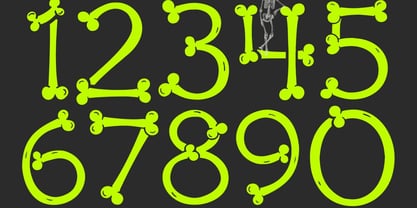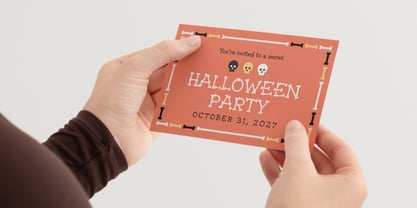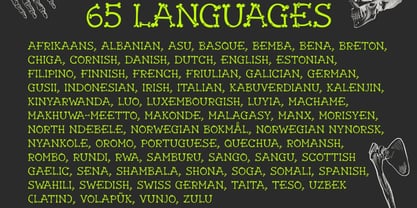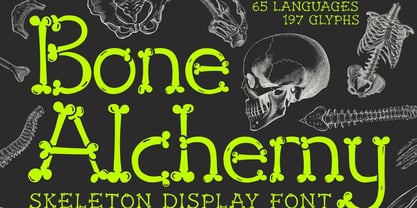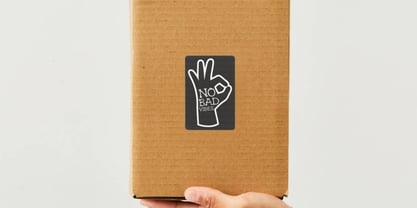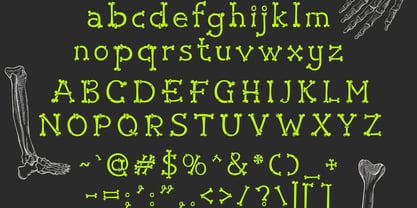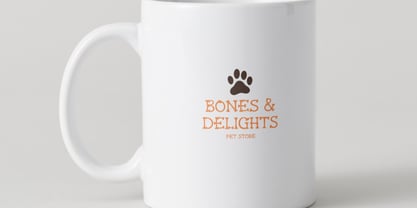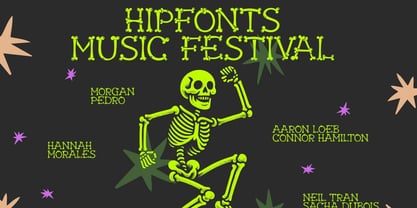
Bone Alchemy
The Bone Alchemy Font Family was designed by Igor Ovsyannykov and published by Hipfonts. Bone Alchemy contains 1 styles. More about this family
Conjured from the shadows of forgotten rituals and the playful mischief of the macabre, Bony Alchemy is a skull-and-bone inspired display typeface that transforms skeletal forms into bold, eye-catching typography. Built from chunky bone-like structures and carved with subtle organic imperfections, this font blends eerie charm with whimsical personality. Each letter feels assembled — as if pieced together from enchanted remains — creating a look that’s spooky without losing its sense of fun. Bony Alchemy walks the line between creepy and charismatic. It’s dramatic enough for dark themes, yet playful enough for seasonal and character-driven designs. The result is a typeface that feels alive… even though it’s made of bones.
Bone Alchemy